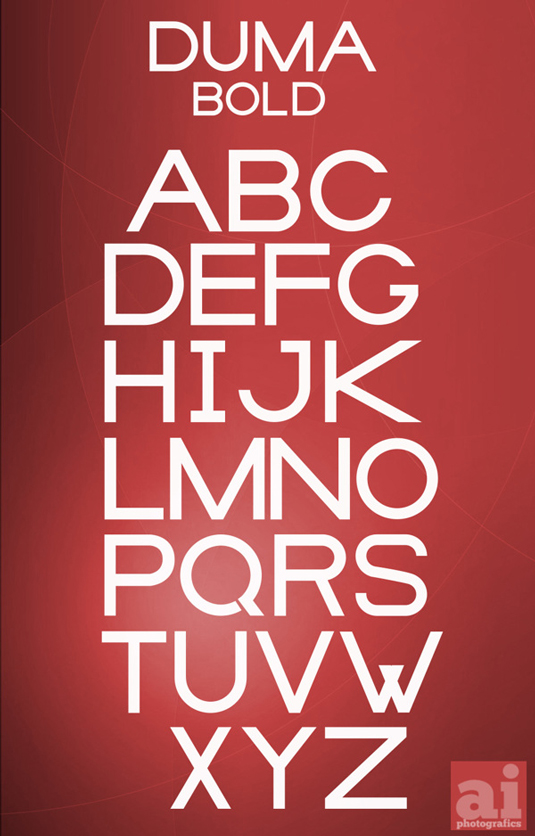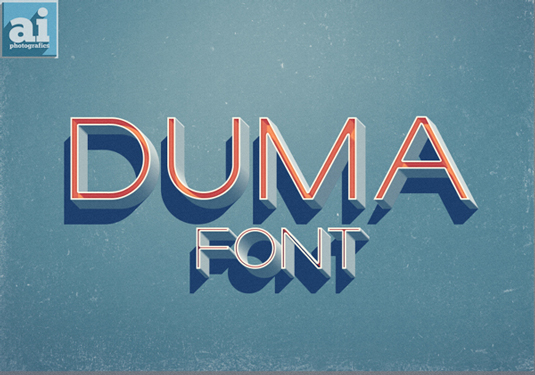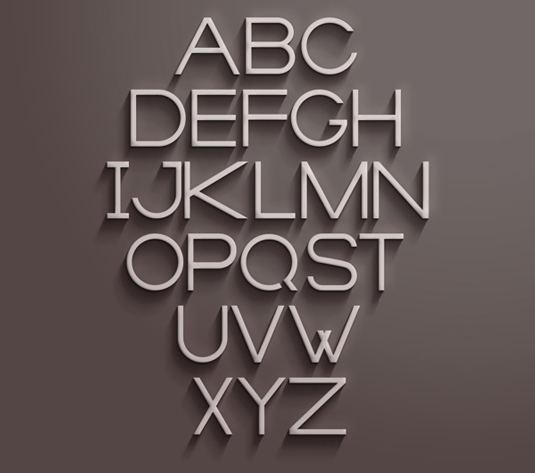
Font of the day: Duma
Every day we showcase the best fonts on the web. Today it's Duma by Ish Adames, which is totally free to download.
Duma by Ish Adames
Duma was created by US-based designer Ish Adames. "Duma is a sans that is characterized with long legs and very extended," Adames comments. "Each character was individually made in Illustrator using basic geometric shapes."